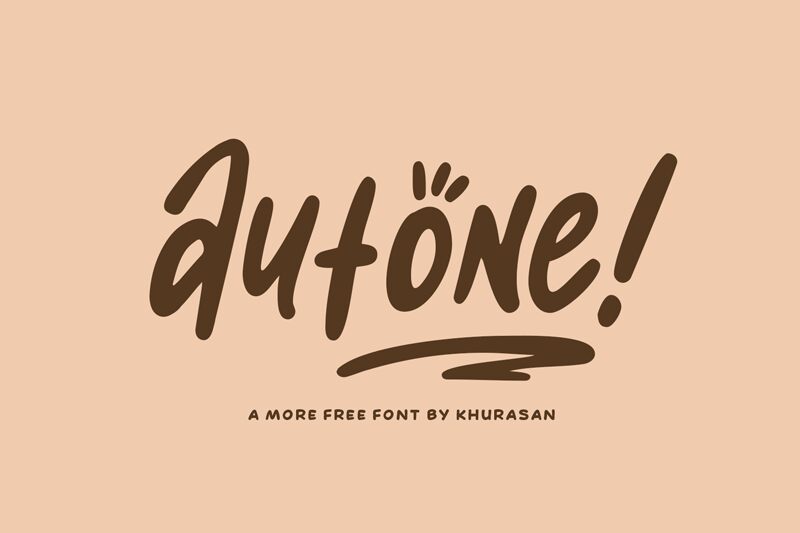
Autone
Autone, a captivating display font by Khurasan, is the perfect choice for projects that require a touch of whimsy and playfulness. With its semi-bold weight and condensed width, this cartoon-inspired typeface brings energy and excitement to any design. Whether you're creating eye-catching posters, vibrant logos, or engaging children's book covers, Autone will make your text pop off the page. Its unique style is also well-suited for animated videos or video game graphics, adding a dash of fun to your digital creations. Let Autone elevate your projects with its bold charm and delightful personality.